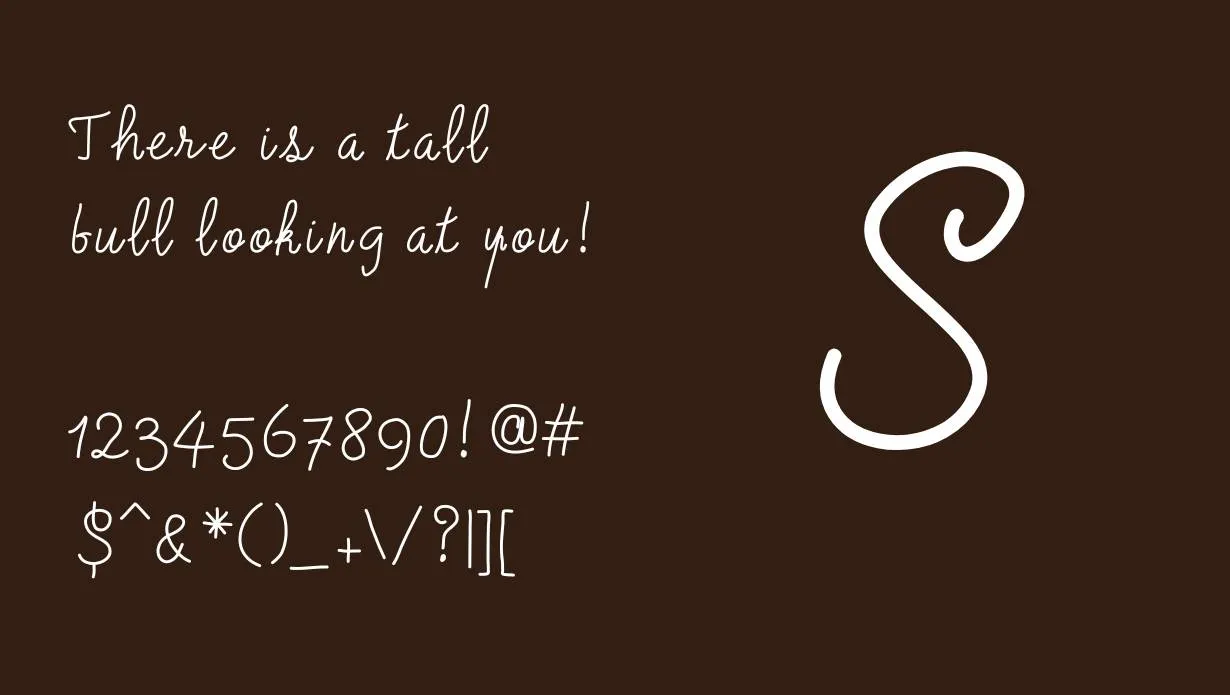
Sugarfree Handmade is a delightful and artisanal font created to add a fun and welcoming atmosphere to different design works. Its characters give the impression of being hand-drawn, with irregular lines and endearing flaws.
This font is commonly used in creative endeavors such as children’s book covers, greeting cards, and other designs where a touch of whimsy is desired. Sugarfree Handmade’s purpose is to add a lighthearted and personal feel to text, creating a warm and inviting atmosphere.